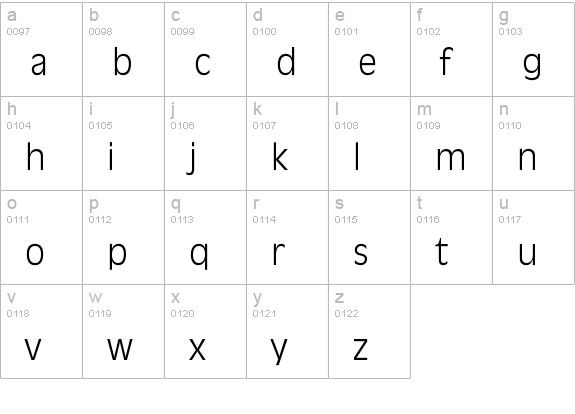
Ravenna-Light is a refined, elegant variant in the Ravenna typeface family \xE2\x80\x94 well suited to elegant body text, refined sub-headings, and luxury branding.
Ravenna-Light font is a stunningly elegant and beautifully crafted typeface that exudes sophistication and grace. Its clean lines and delicate curves make it perfect for any design project that requires a touch of refinement and class. This font's light weight adds a sense of airiness and an ethereal quality to your text, making it the ideal choice for elegant invitations, romantic wedding stationery, or delicate branding materials. Its versatility allows it to be used in a wide range of applications, from print to digital media. What makes Ravenna-Light font even more enticing is that it is absolutely free to download. Yes, you read that right! This premium-quality font is freely available to download at FontsMarket.com, where you can easily access it and bring a touch of sophistication to your designs without spending a dime. Whether you're a professional designer or a DIY enthusiast, Ravenna-Light font is a must-have in your font library. Its timeless beauty and refined aesthetic will elevate your projects and captivate your audience. Don't miss this opportunity to enhance your designs with a font that combines elegance with accessibility. Download Ravenna-Light font today from FontsMarket.com and unlock a world of possibilities for your design projects. Let your creativity soar and create breathtaking designs that leave a lasting impression, all with the help of this amazing free font.